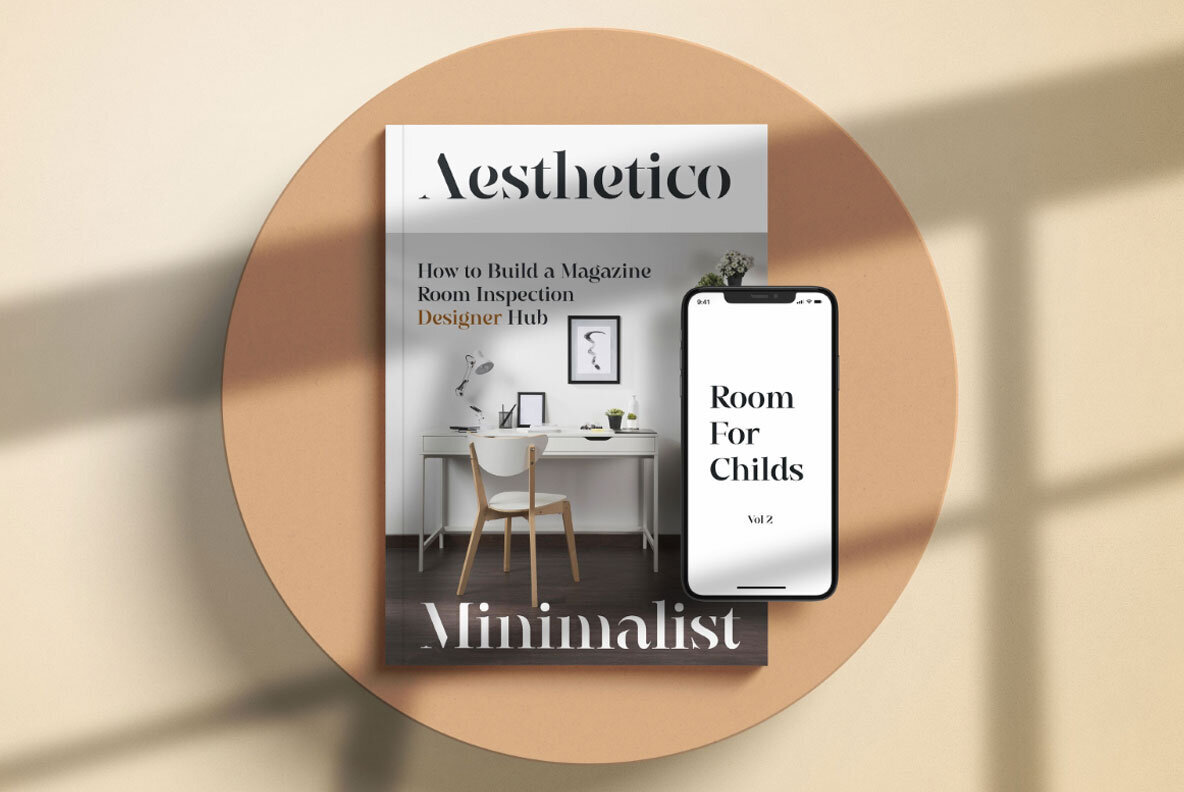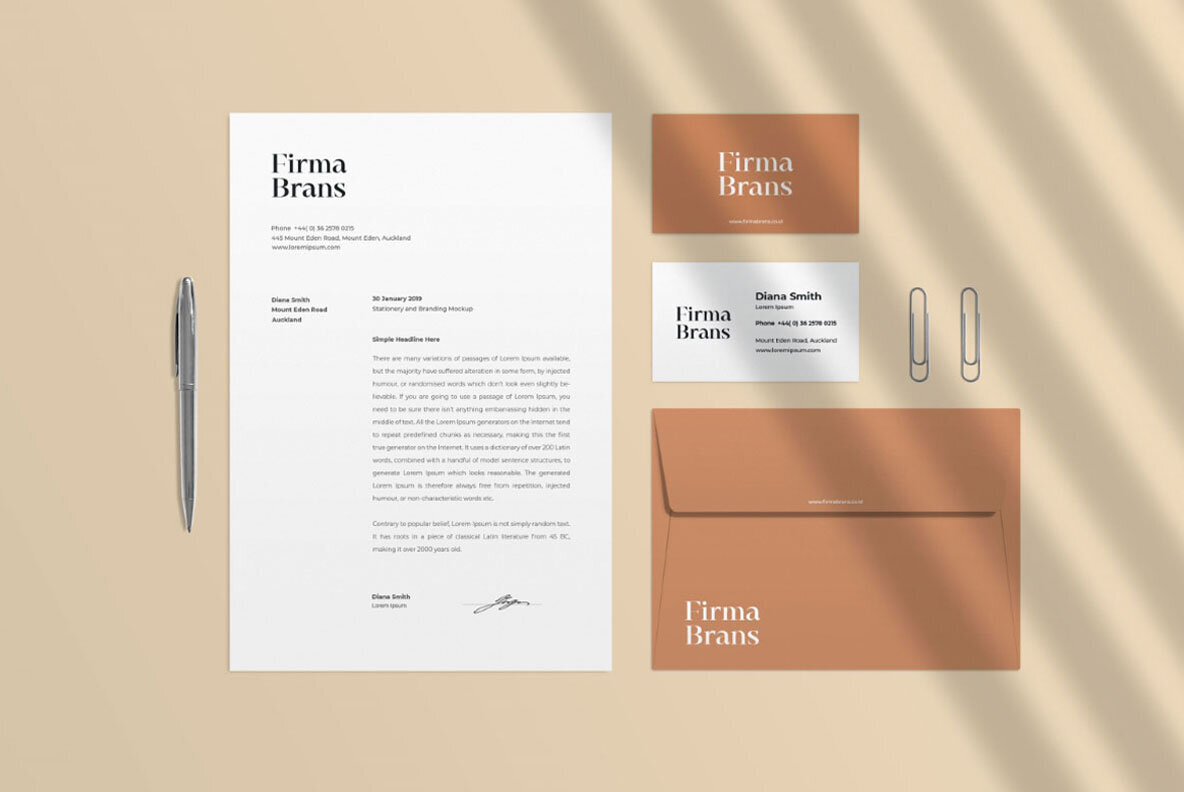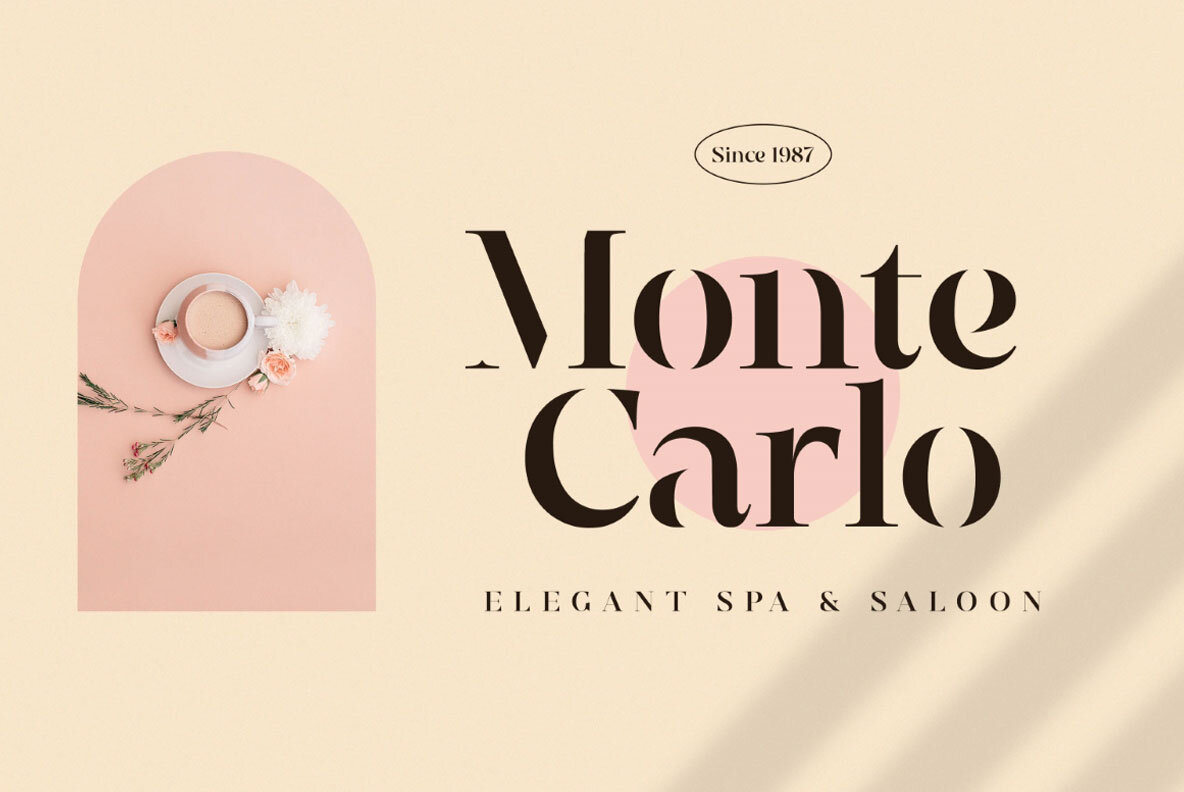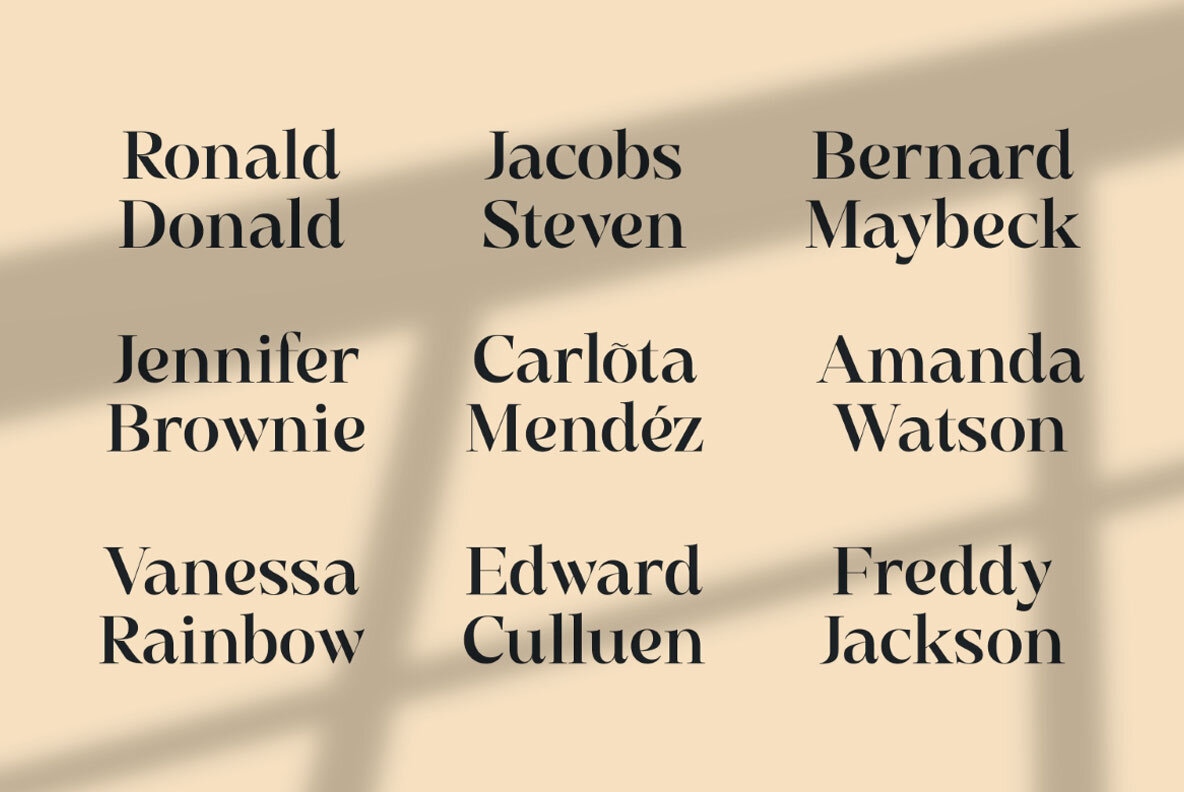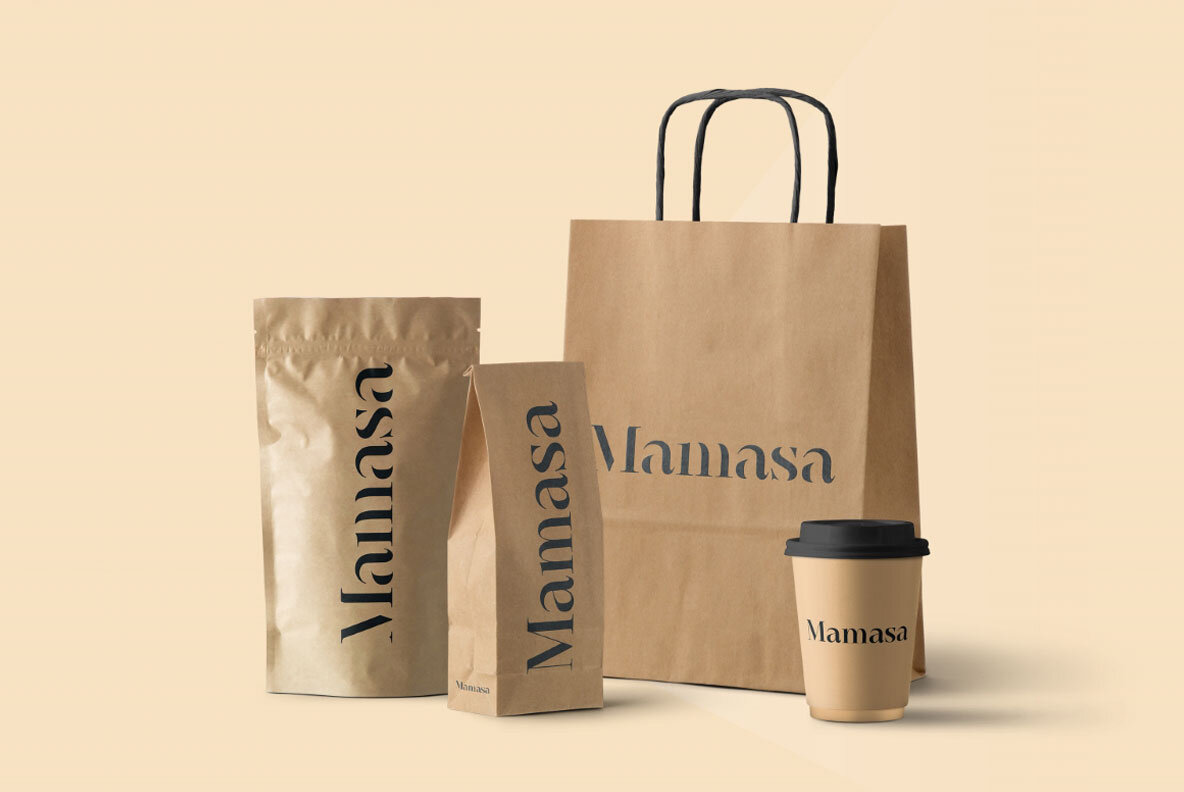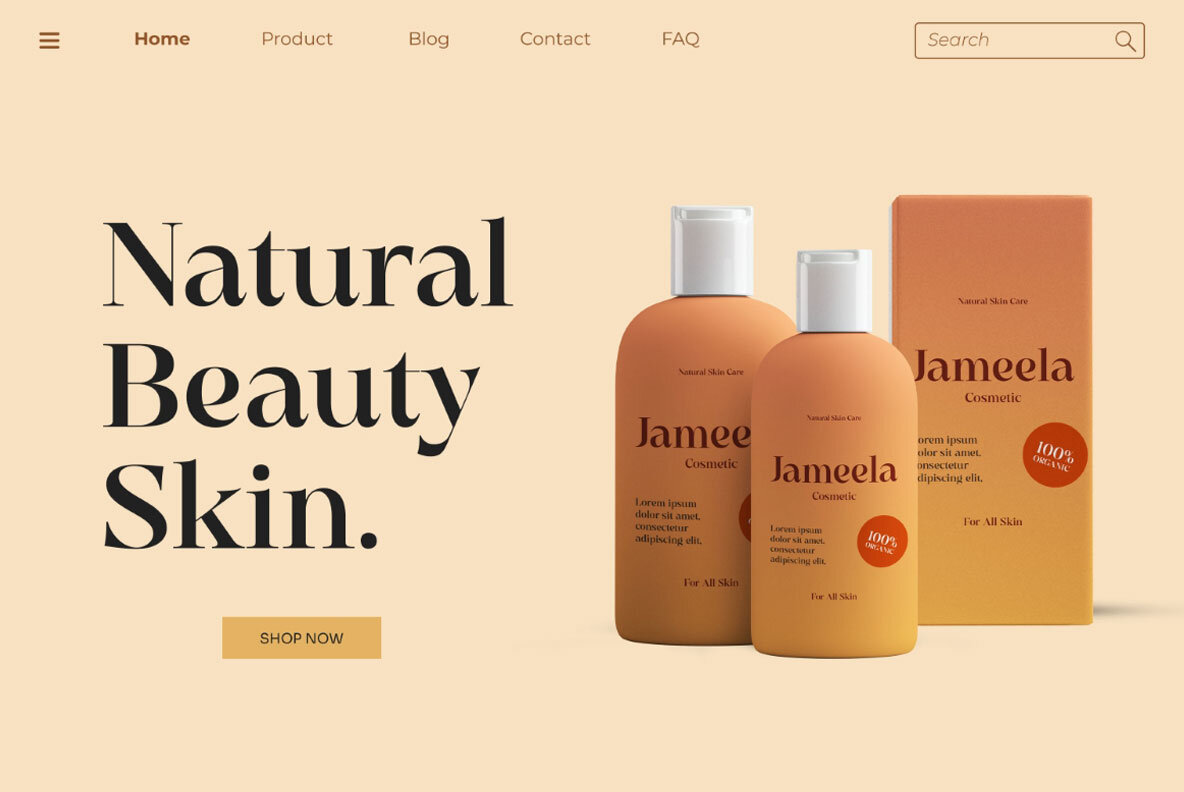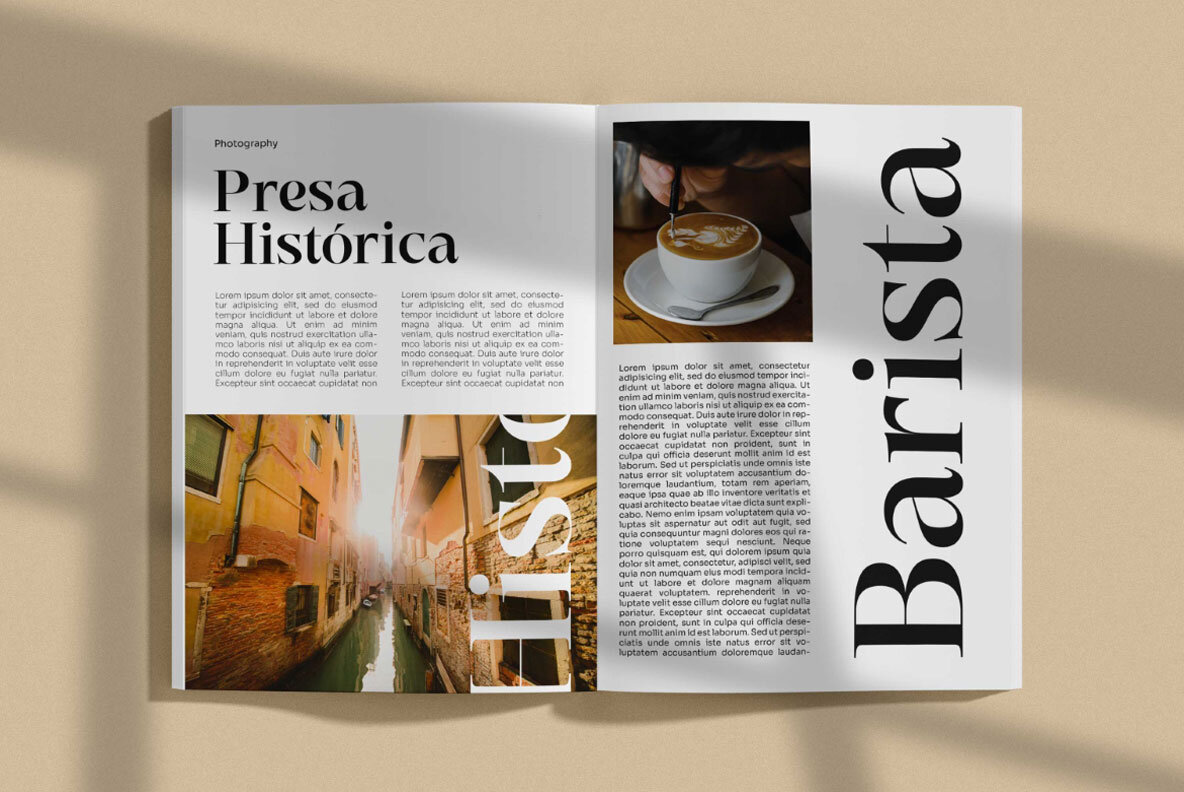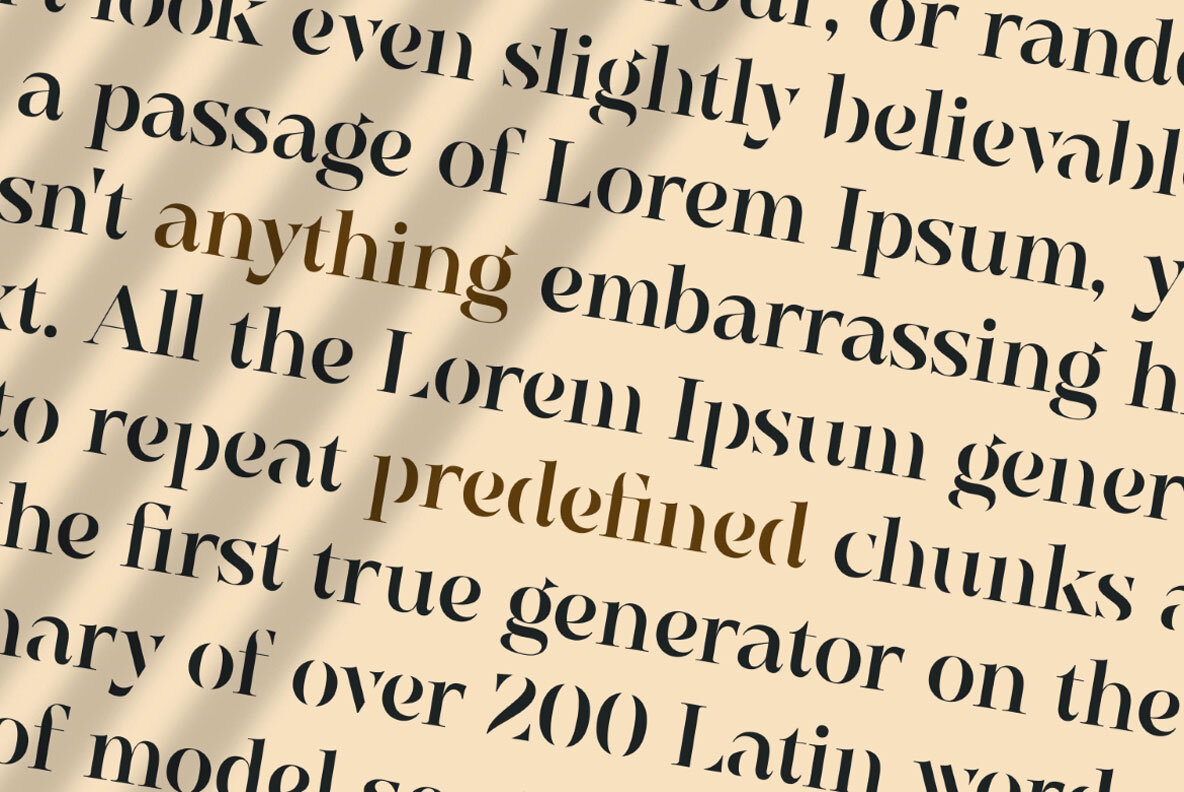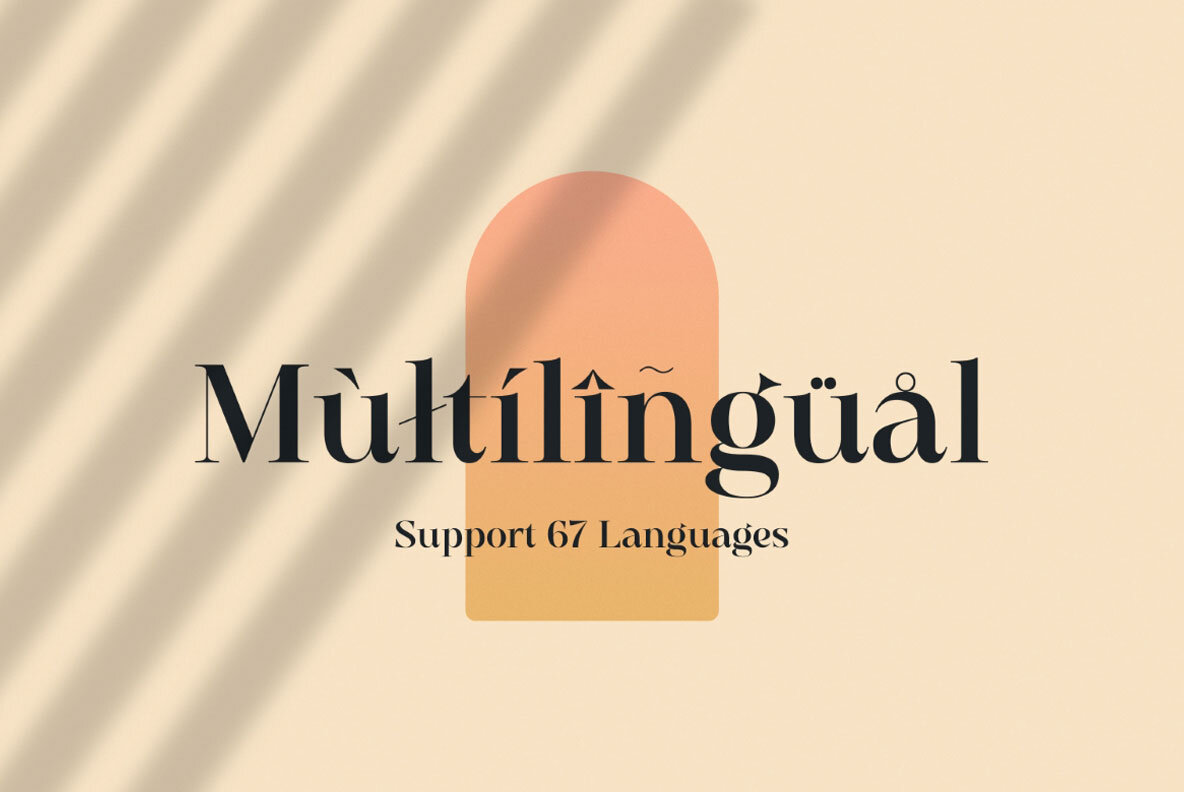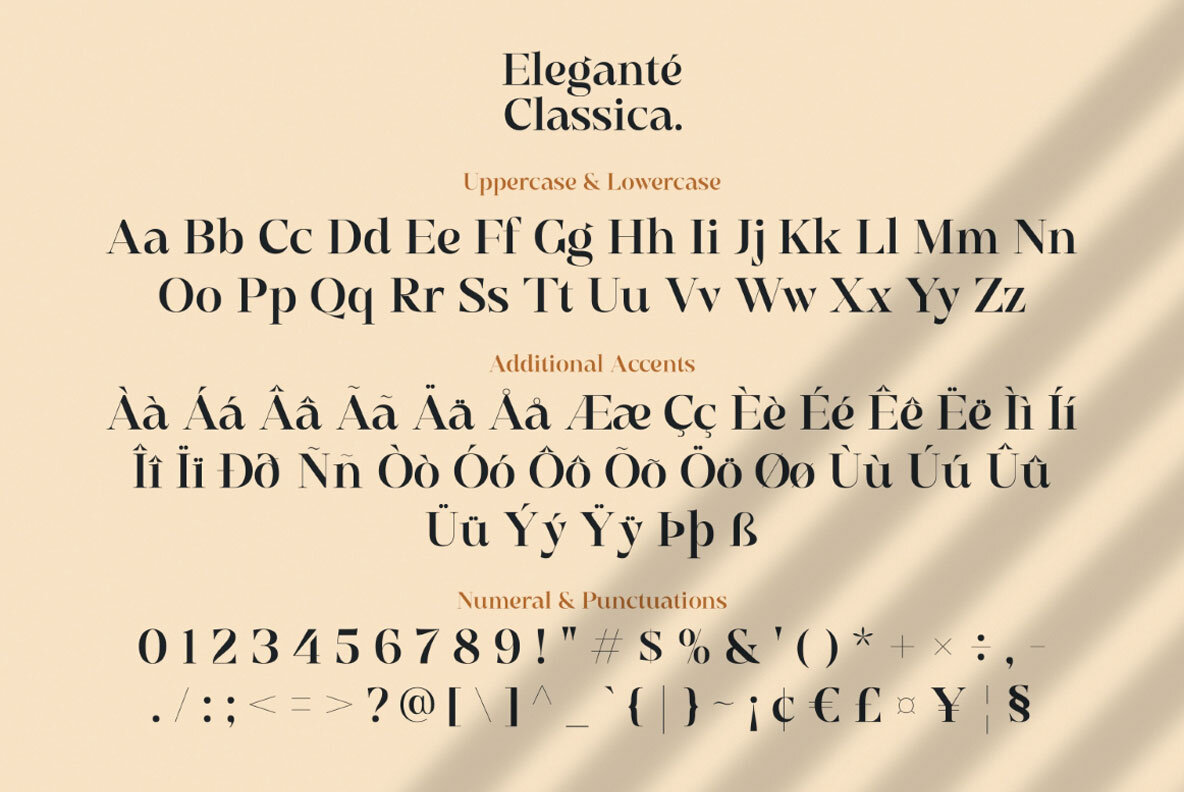
Elegante Classica Font
Elegante Classica Regular
Elegante Classica Stencil
Elegante Classica is an exquisite serif display font that captures minimalist elegance. It's an ideal choice for crafting templates, brochures, video content, advertising, branding, and logos. Its unique character makes it perfect for enhancing word-mark logos, monograms, or pull quotes with refined sophistication.Elegante Classica: Luxurious Serif Display Font